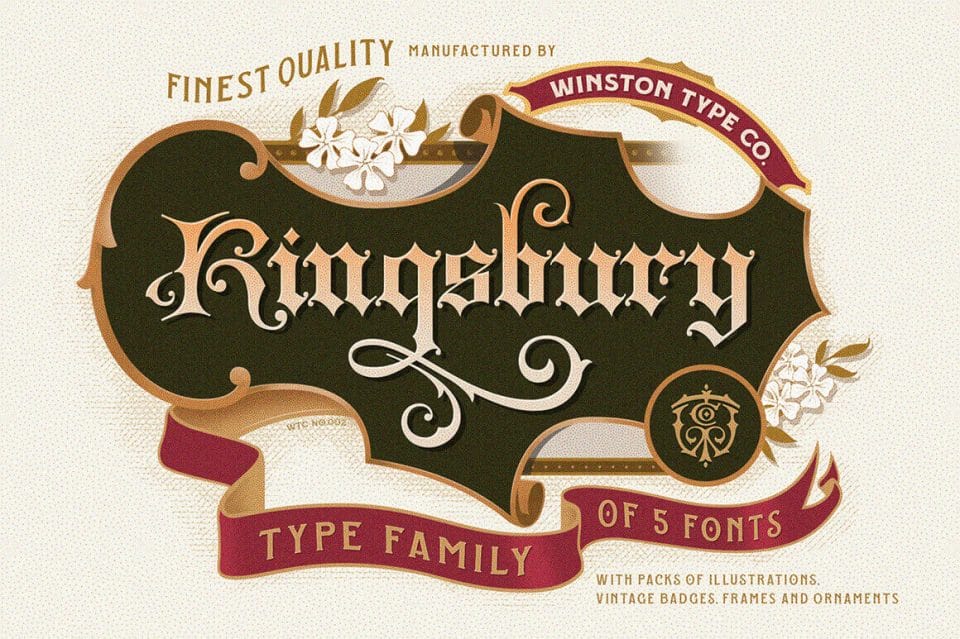
Kingsbury Font Family & Design Bundle of Royal Beauty – only $9!
Inspired by the Old English era in Western Europe, WT Kingsbury Gothic exhibits dramatic thin and thick strokes mixed in with the elaborate swirls of the Victorian Age. Mix and match any of the 5 typefaces in this Royal Font Family and toss in any of the gorgeous bonuses from the included design pack to create the perfect project.
- Professional font with a regal feel inspired from
Old English era. - 5 fonts in 1: Serif, Fancy, Stroke, Gothic and Black.
- Gorgeous design pack includes illustrations, badges, frames and floral ornaments.
- Perfect Font Family to use for headlines, posters, prints, logos, T-shirts, awards, certificates, labels, signs and more.